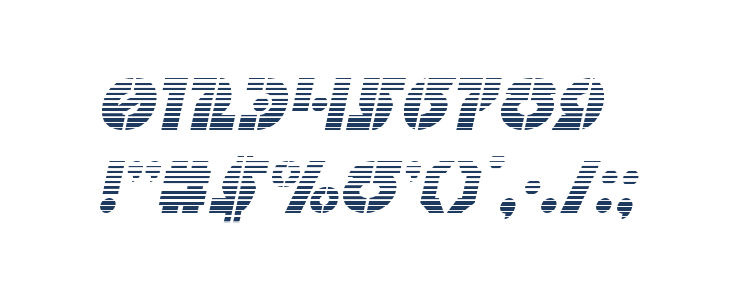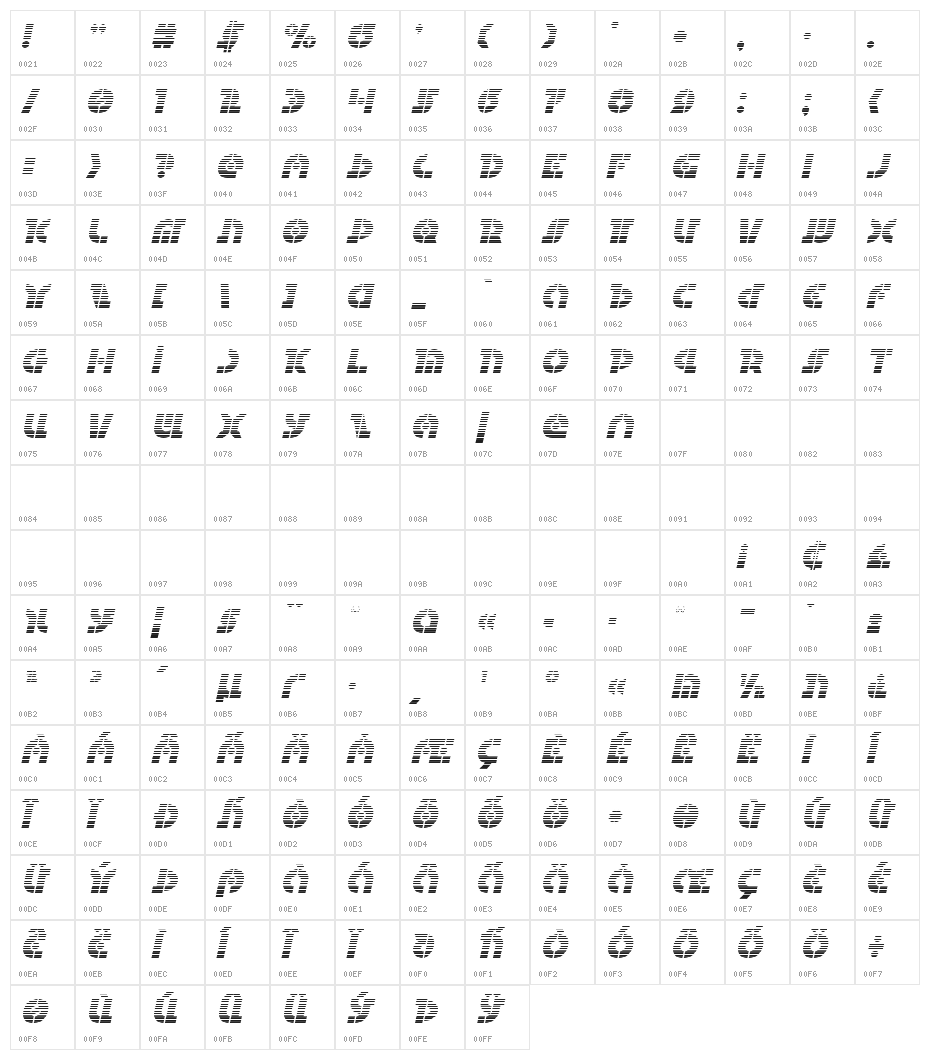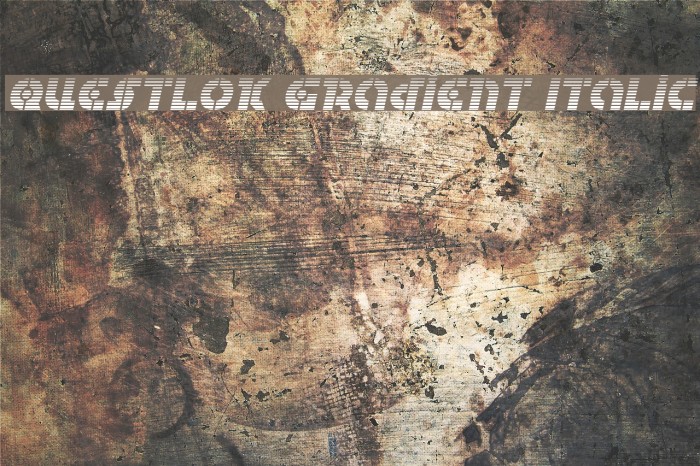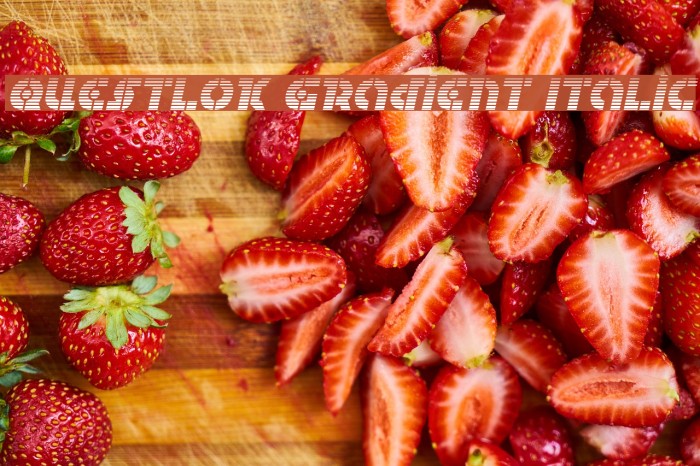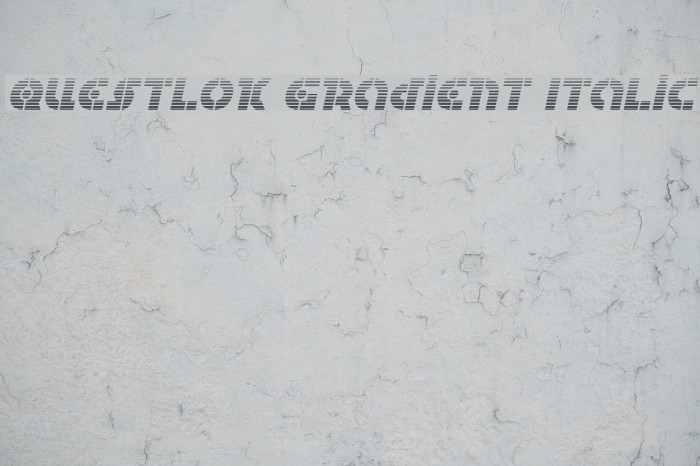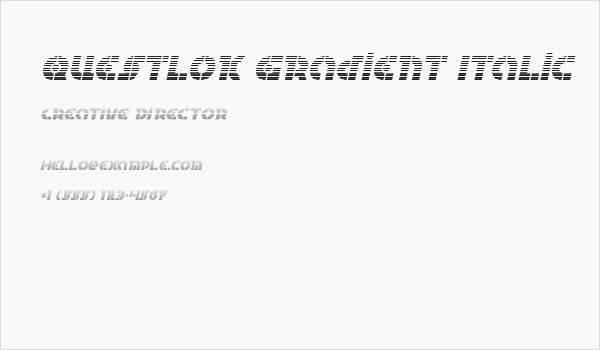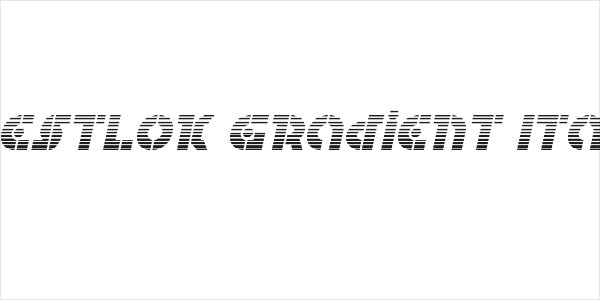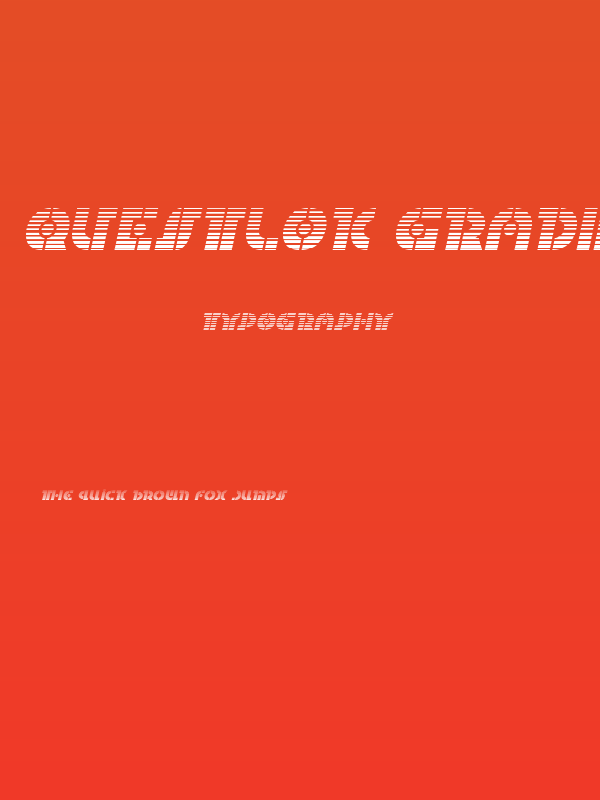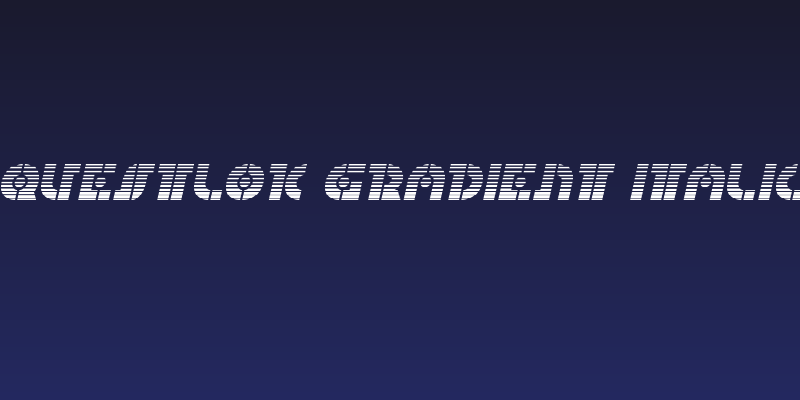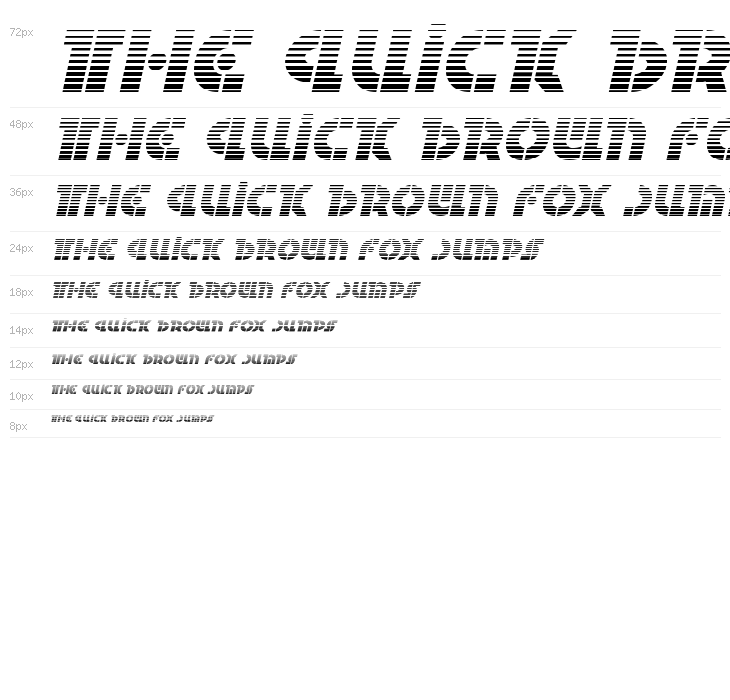
Questlok Gradient Italic Font
Questlok Gradient Italic Description
This font features a unique gradient effect created by horizontal lines that form each character, giving it a dynamic and modern appearance. The italic style adds a sense of motion and fluidity, enhancing its contemporary feel. The characters are bold and have a strong presence, making them suitable for attention-grabbing designs. The spacing between characters is relatively tight, contributing to its compact look. This font is ideal for projects that require a futuristic or tech-inspired aesthetic, such as digital art, modern branding, or innovative product packaging.
| Proposed Projects | Ideal for digital art, modern branding, tech-inspired designs, and innovative product packaging. |